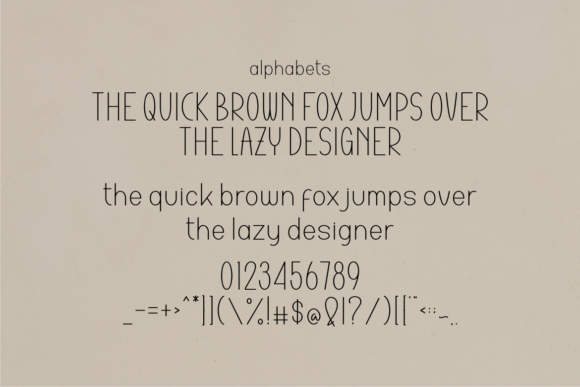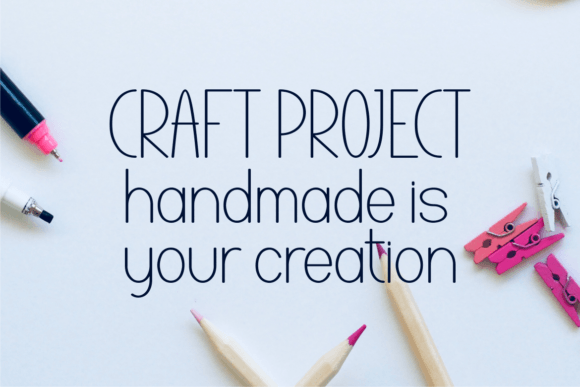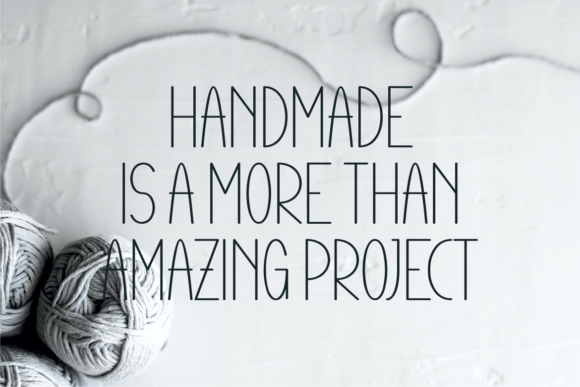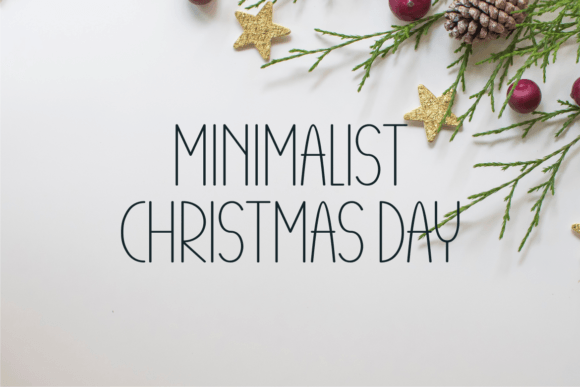
Introducing Charlie Swift Font: Elevate Your Designs with Elegance and Sophistication
In the world of typography, fonts play a crucial role in conveying the tone and personality of a brand or design. For designers and crafters seeking a modern, elegant, and classy sans serif font, Charlie Swift Font is an excellent choice. This versatile font is perfect for a wide range of projects, including fashion, apparel, signatures, album covers, logos, branding, magazines, social media, and advertisements.
What Makes Charlie Swift Font Stand Out?
Charlie Swift Font boasts a sleek and sophisticated design, characterized by clean lines, subtle curves, and a modern aesthetic. Its sans serif style gives it a fresh and contemporary look, making it ideal for designs that require a touch of elegance and refinement. The font’s versatility allows it to seamlessly integrate into various projects, from luxury brands to creative endeavors.
Key Features of Charlie Swift Font
- Elegant and Classy Design: Charlie Swift Font features a sophisticated and refined design, perfect for high-end brands and luxury projects.
- Modern Sans Serif Style: The font’s clean and minimalist aesthetic makes it ideal for modern designs and creative projects.
- Versatile and Adaptable: Charlie Swift Font can be used for a wide range of projects, from fashion and apparel to logos, branding, and advertisements.
- Excellent Legibility: The font’s clear and readable design ensures that your message is conveyed effectively, even at small sizes.
Use Cases for Charlie Swift Font
Charlie Swift Font is an excellent choice for various design projects, including:
- Fashion and Apparel: Use Charlie Swift Font to create stylish and sophisticated branding, logos, and labels for your fashion brand.
- Signatures and Logos: The font’s elegant design makes it perfect for creating custom signatures, logos, and letterheads.
- Album Covers and Music Branding: Charlie Swift Font is an excellent choice for album covers, music labels, and artist branding.
- Magazines and Social Media: Use the font to create engaging and stylish content for magazines, social media, and online publications.
- Advertisements and Marketing Materials: Charlie Swift Font is perfect for creating eye-catching advertisements, brochures, and marketing materials.
Tips for Using Charlie Swift Font Effectively
To get the most out of Charlie Swift Font, consider the following tips:
- Pair with Other Fonts: Experiment with pairing Charlie Swift Font with other fonts to create a unique and visually appealing design.
- Adjust Font Sizes and Weights: Use different font sizes and weights to create visual hierarchy and emphasize important information.
- Play with Colors and Textures: Experiment with different colors and textures to add depth and interest to your design.
Charlie Swift Font is a versatile and elegant sans serif font that can elevate your designs with sophistication and refinement. Its modern aesthetic, excellent legibility, and adaptability make it an excellent choice for a wide range of projects. Whether you’re a designer, crafter, or entrepreneur, Charlie Swift Font is a valuable addition to your typography toolkit.